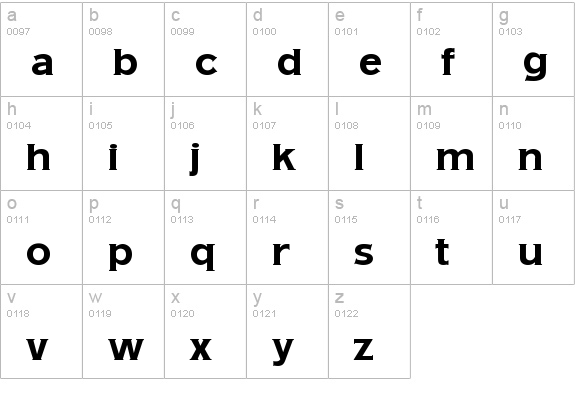
AmericanGotURWTBol Font Details
AmericanGotURWTBol font is a bold and eye-catching typeface that is perfect for making a statement in your design projects. With its strong, sturdy letterforms and clean lines, this font exudes confidence and power. Whether you're creating a poster, flyer, logo, or any other design, AmericanGotURWTBol font will make sure your message is loud and clear. The best part? AmericanGotURWTBol font is completely free to download at FontsMarket.com. This means you can easily add this versatile font to your collection without breaking the bank. So go ahead and give your designs that extra edge with AmericanGotURWTBol font - the perfect blend of style and substance.